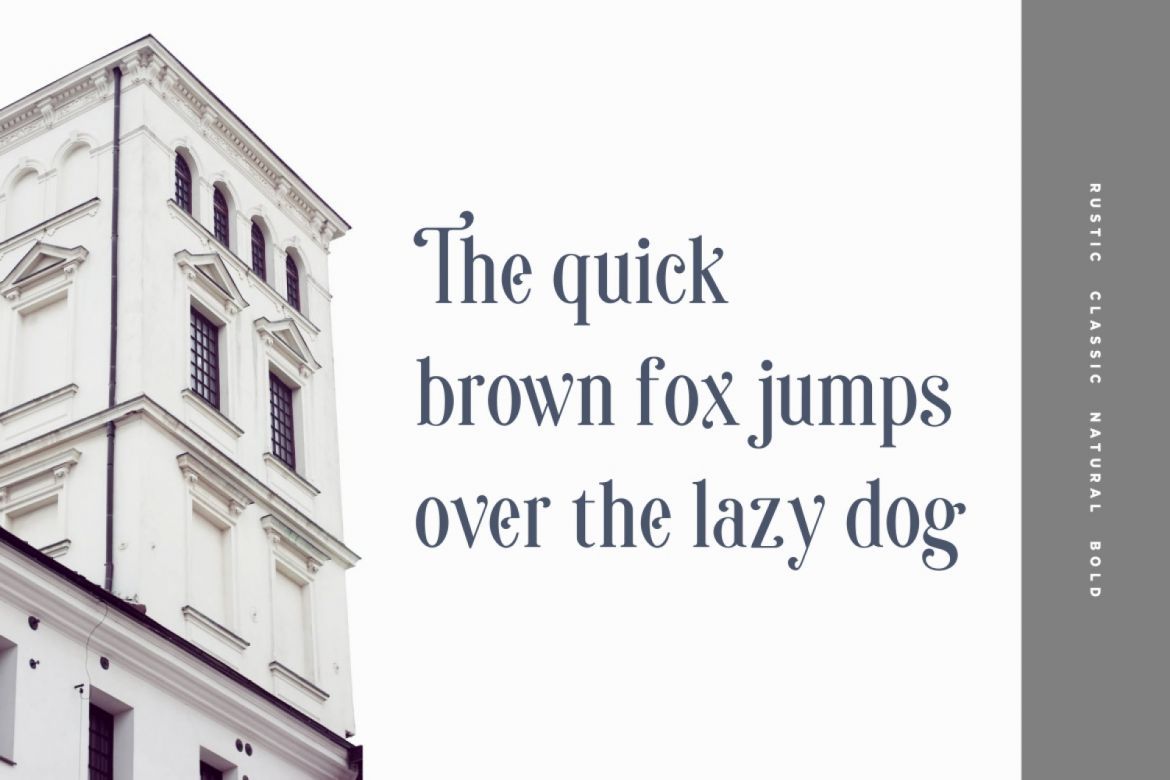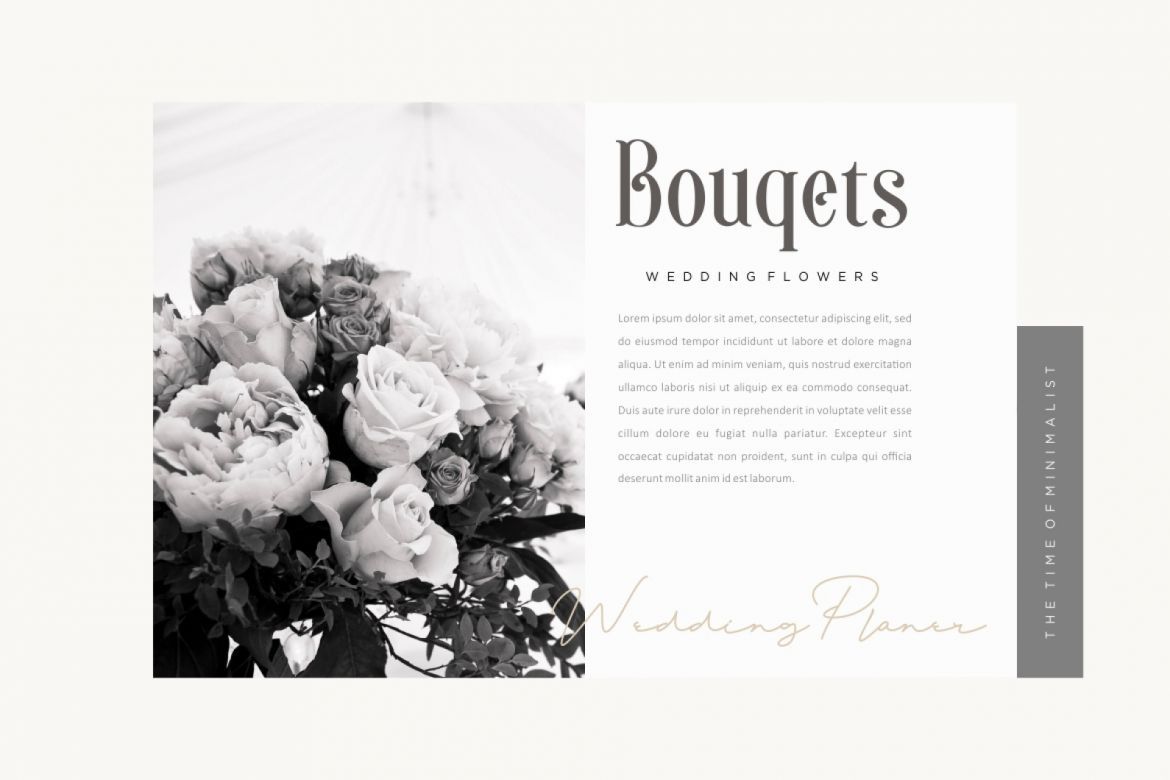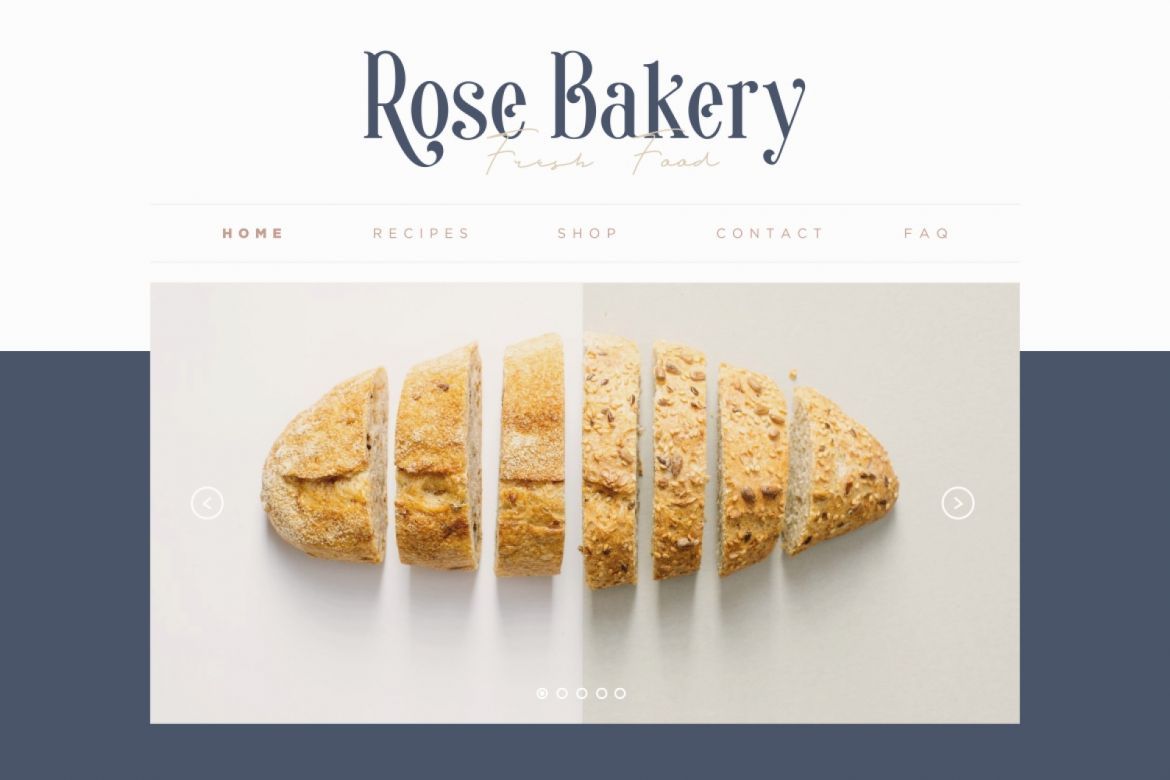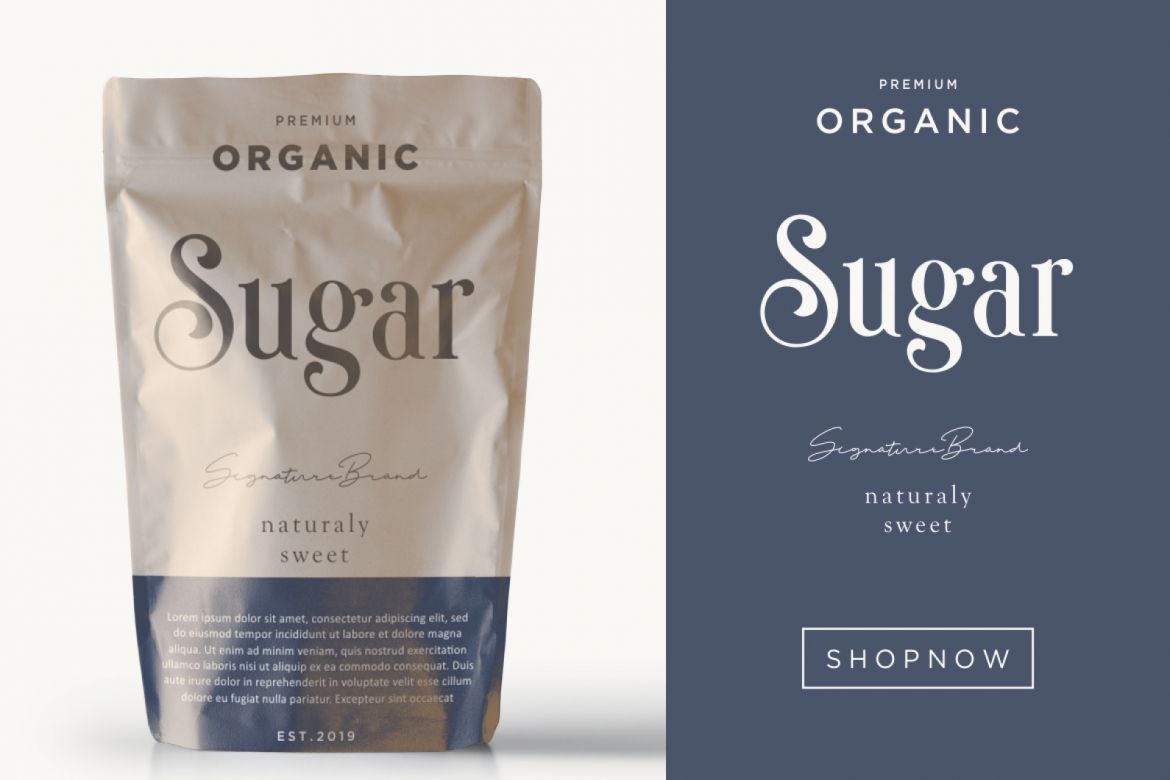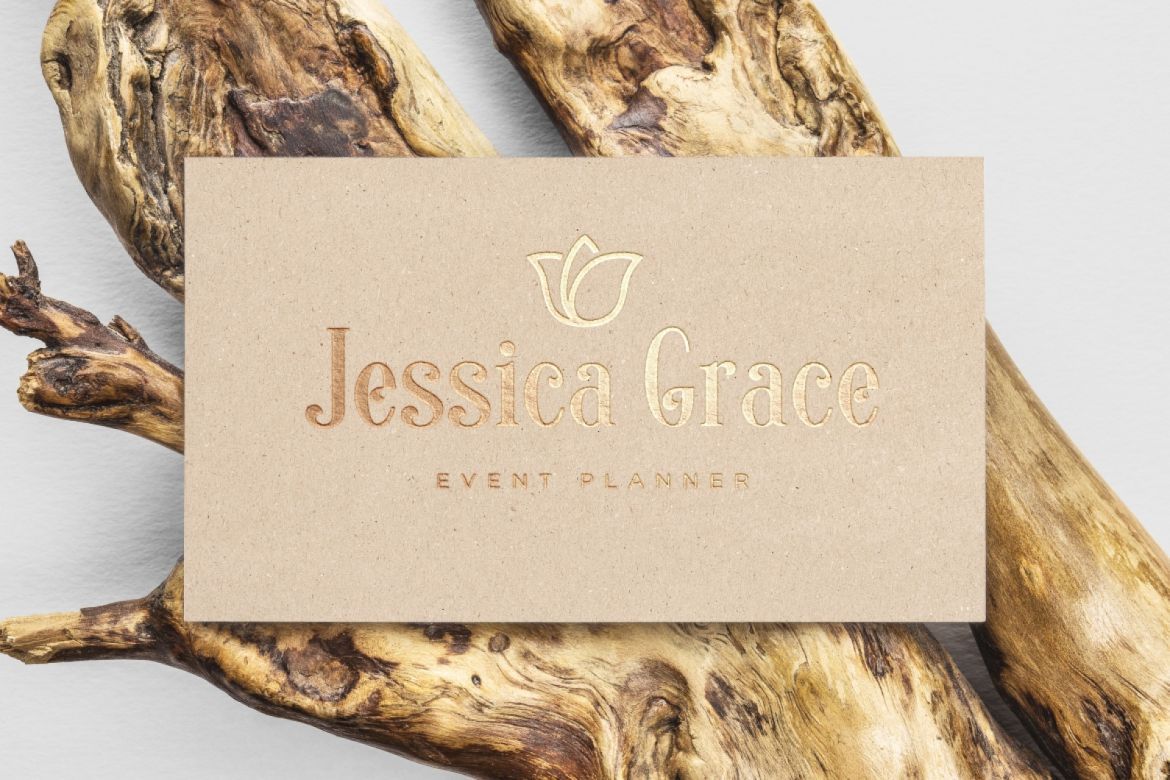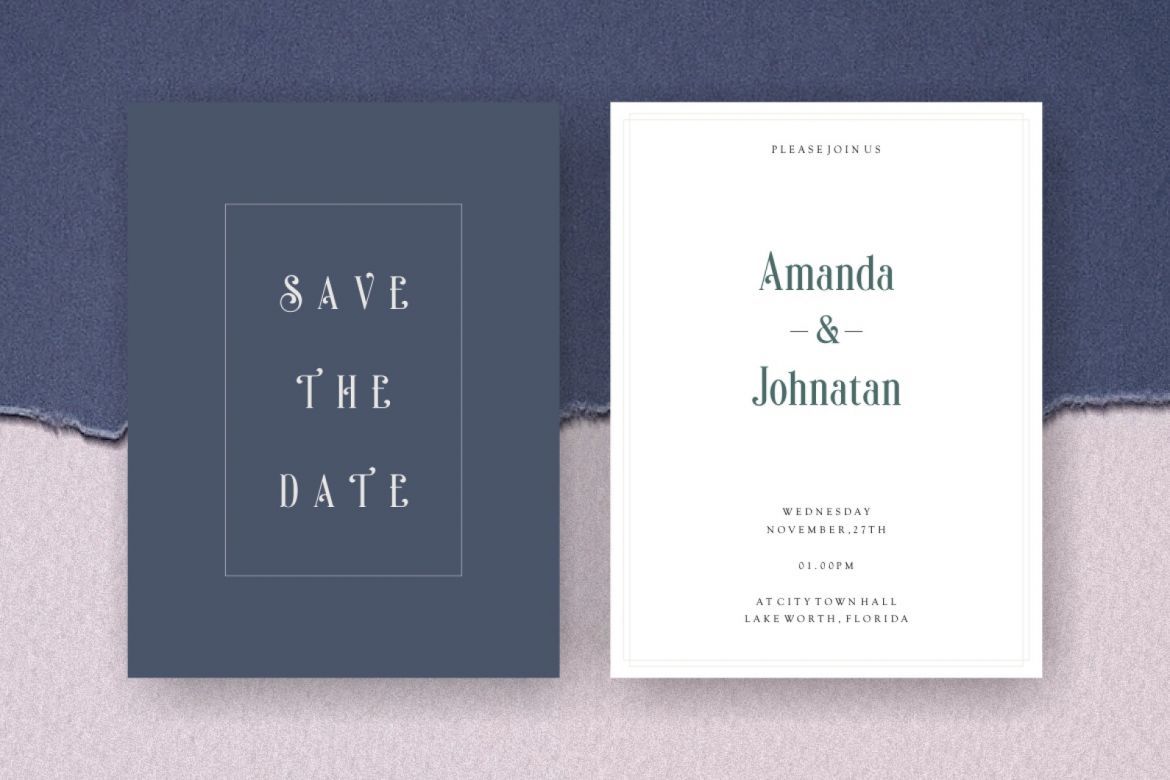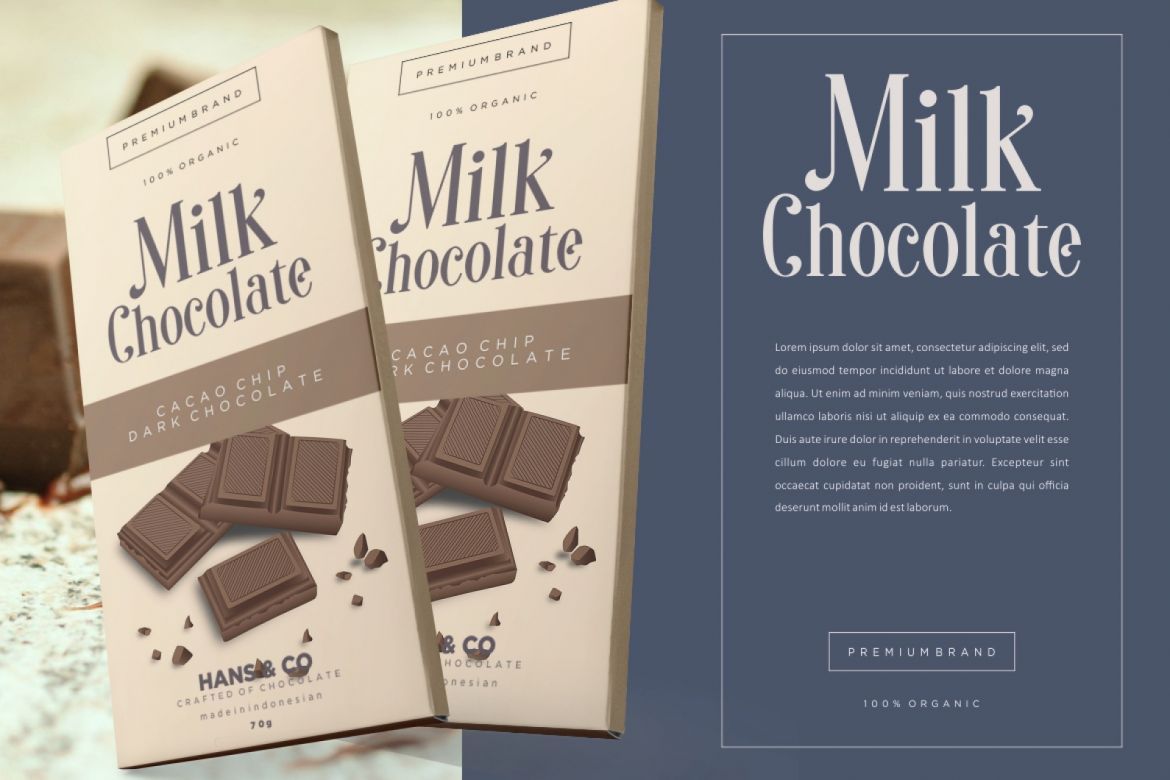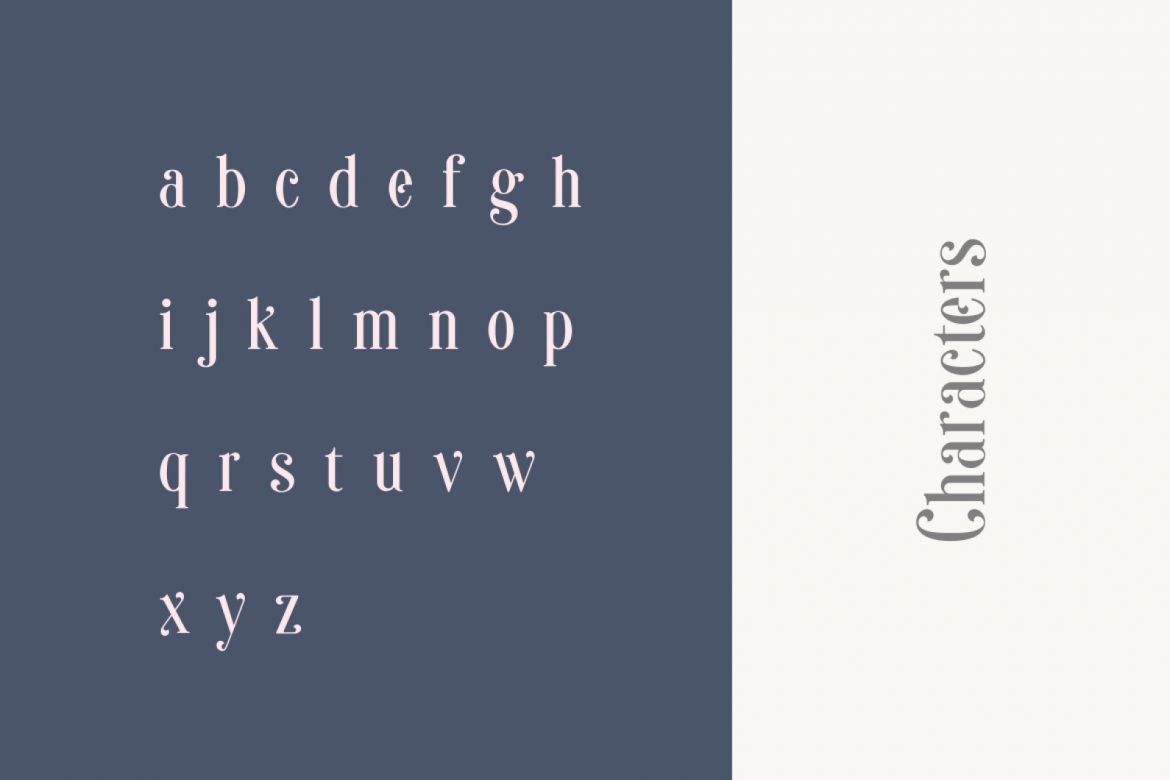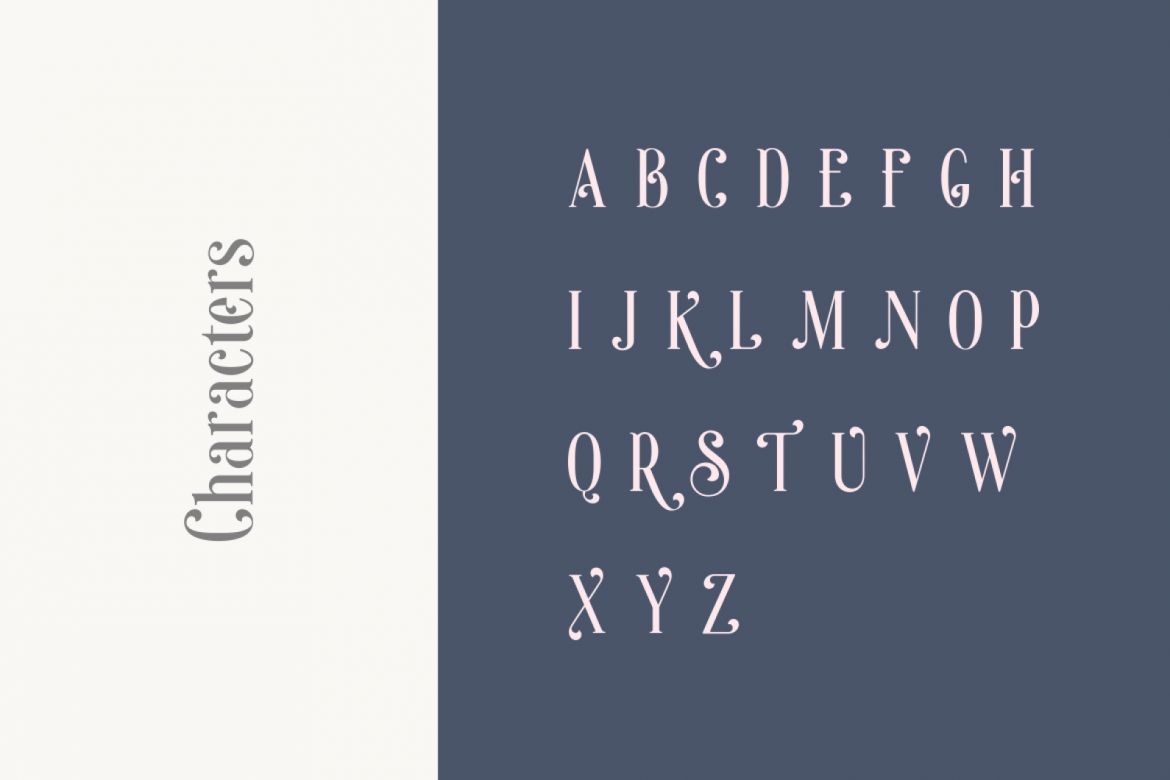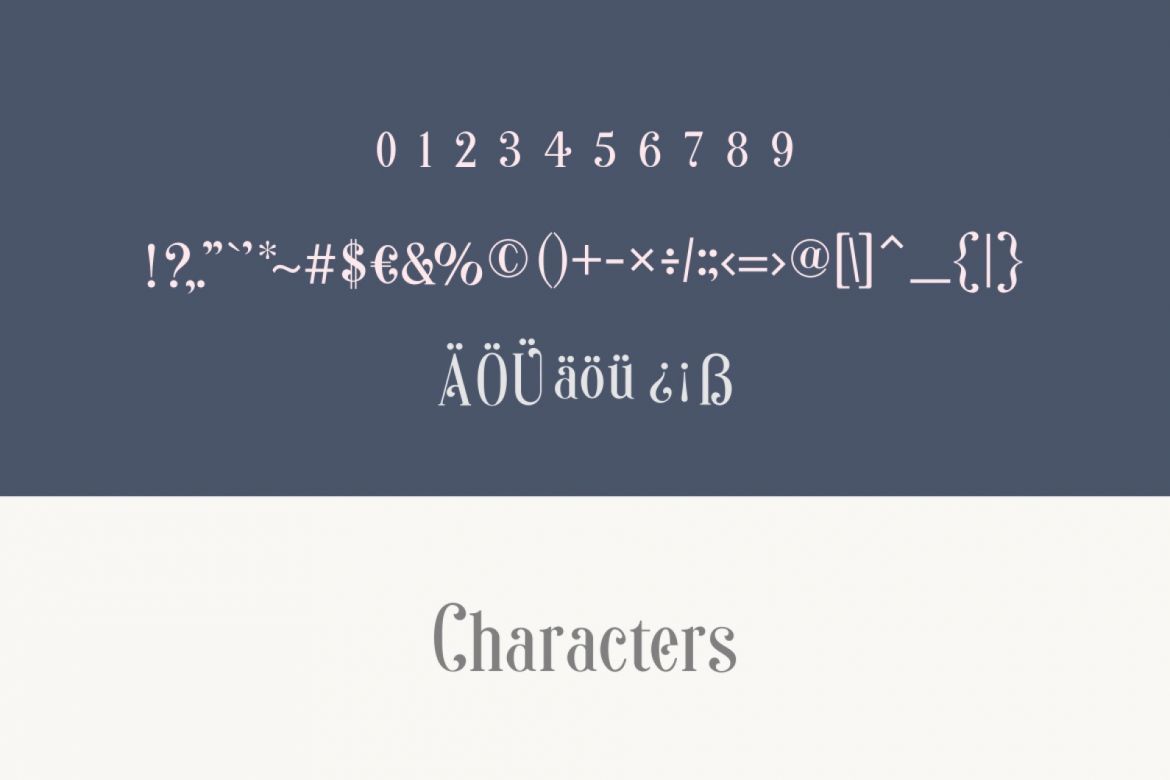
Sonia Serif Font
SONIA FONT — Sonia Font is an elegant serif font designed with lovely circle tail to create a classy font style. It perfectly represents classic yet modern way.
This font will make perfectly for elegant logo design, packaging or invitation cards.
• good for printable like a business cards or invitation
• perfectly for classy and ellegant logo brand